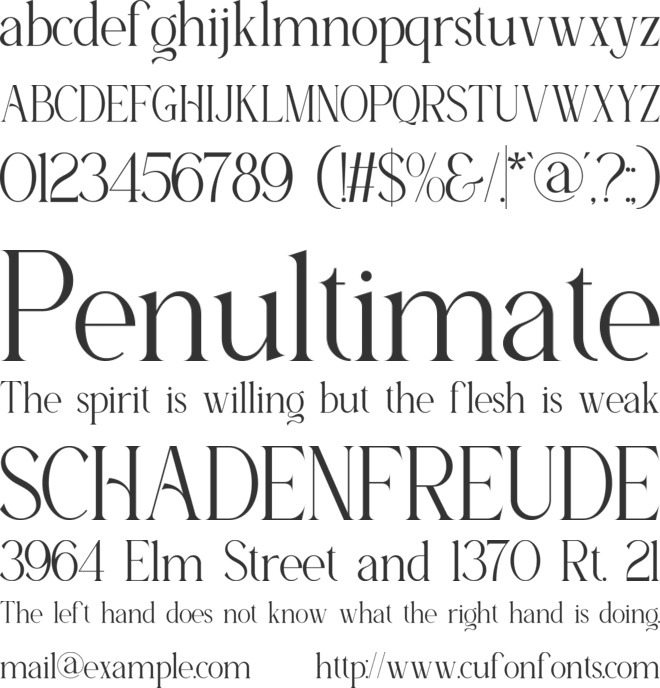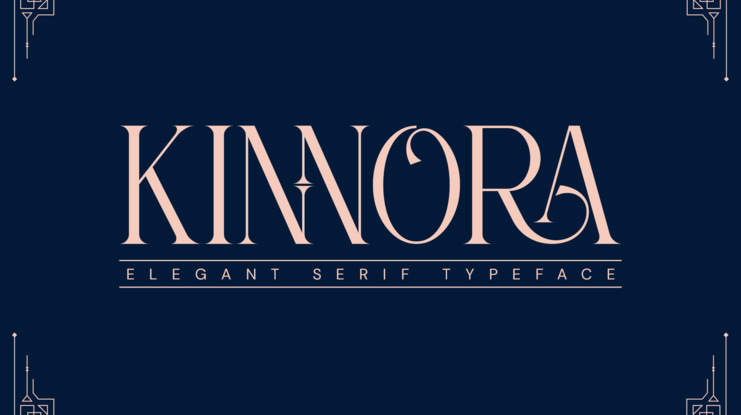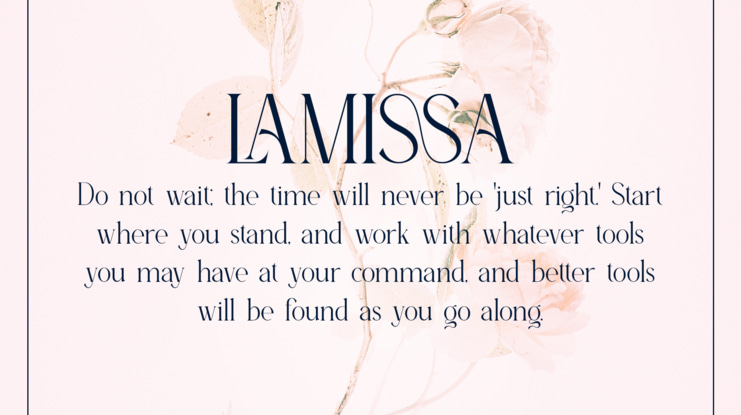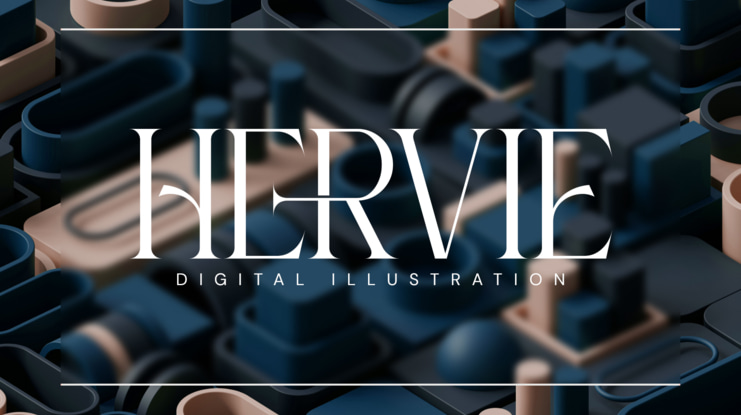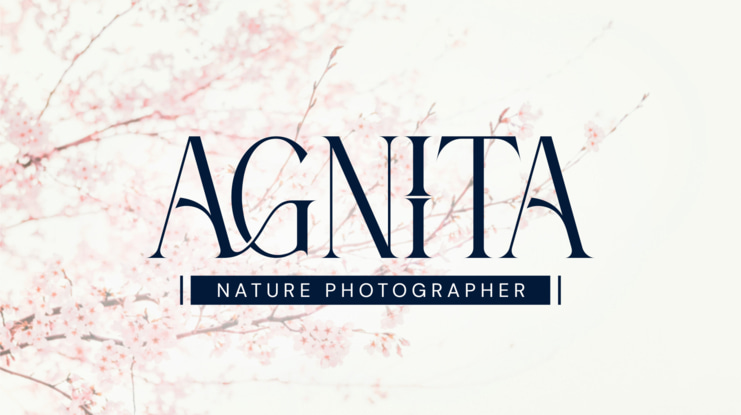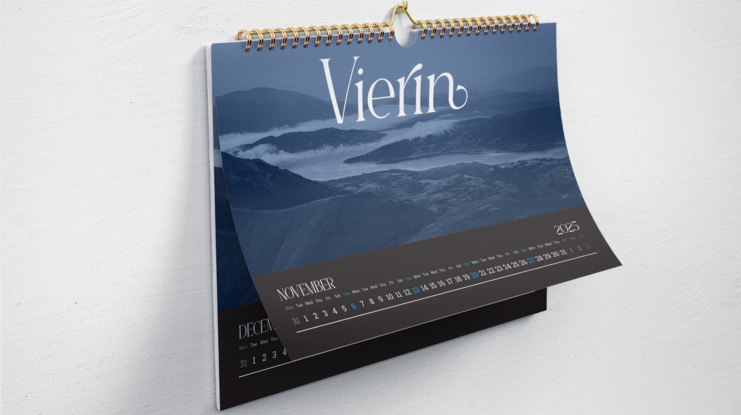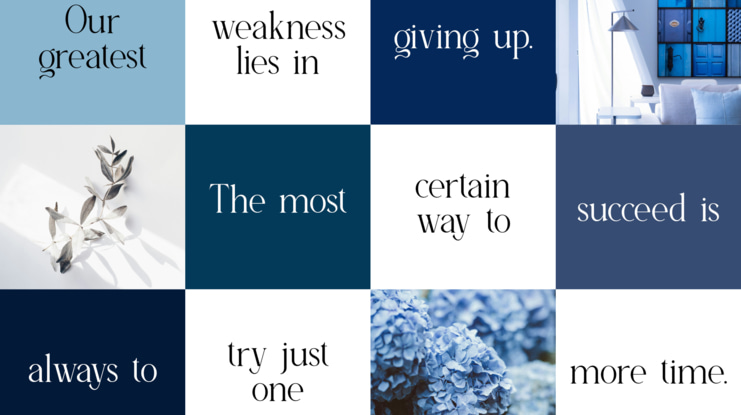
Kinnora Font
Introducing Kinnora Serif Font: is a balanced, smooth, elegant and stylish serif font. He has a beautiful character. Very suitable to be combined with invitation card designs, company logos, film titles, film names, business cards, book titles, brand names and various other designs. Kinnora Serif is a smooth serif font that exudes sophistication and elegance.This charming and stylish font makes this font the perfect partner for any project.
FEATURE :
- Ligature
- Uppercase and lowercase
- Numbering and Punctuation